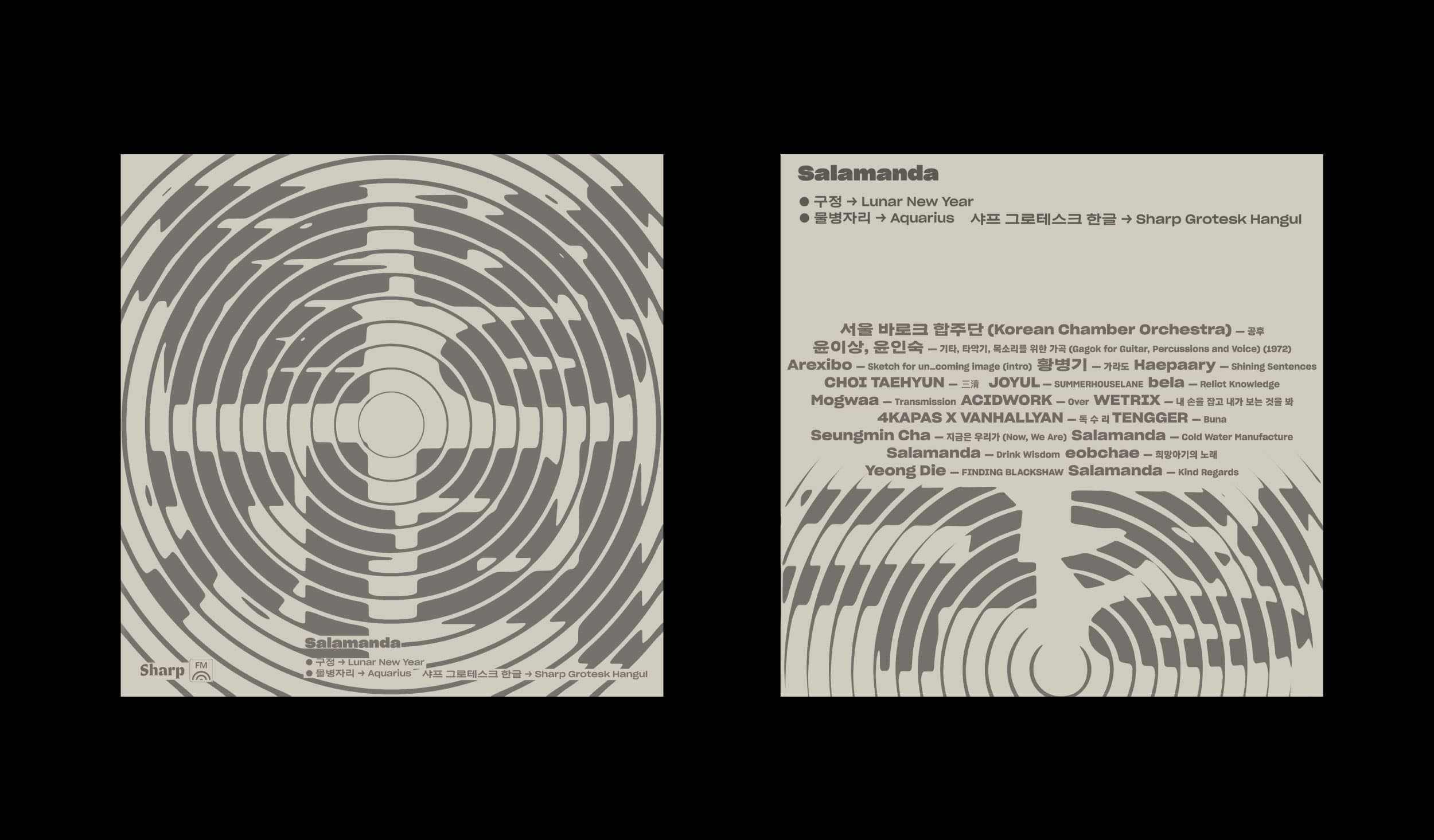
Sharp Grotesk 한글
Sharp Grotesk Global is Sharp Type’s largest superfamily to date. It’s our most comprehensive Latin typeface, with twelve weights and seven widths in Roman and Italic styles. Sharp Grotesk now also represents our first multi-script release, with extensions in Greek, Cyrillic, Hangul, and Thai. Finally, a Latin variable font rounds out the collection. What began as a hand-drawn lettering poster in 2011 is arguably our most versatile typeface, endlessly adaptable and scalable. It’s the culmination of years of work, and it’s a prelude for what’s to come at Sharp Type.
Type Director: Lucas Sharp | SG Hangul Design: Minjoo Ham & Lucas Sharp
Salamanda - Sharp FM mixtape cover featuring Sharp Grotesk Hangul